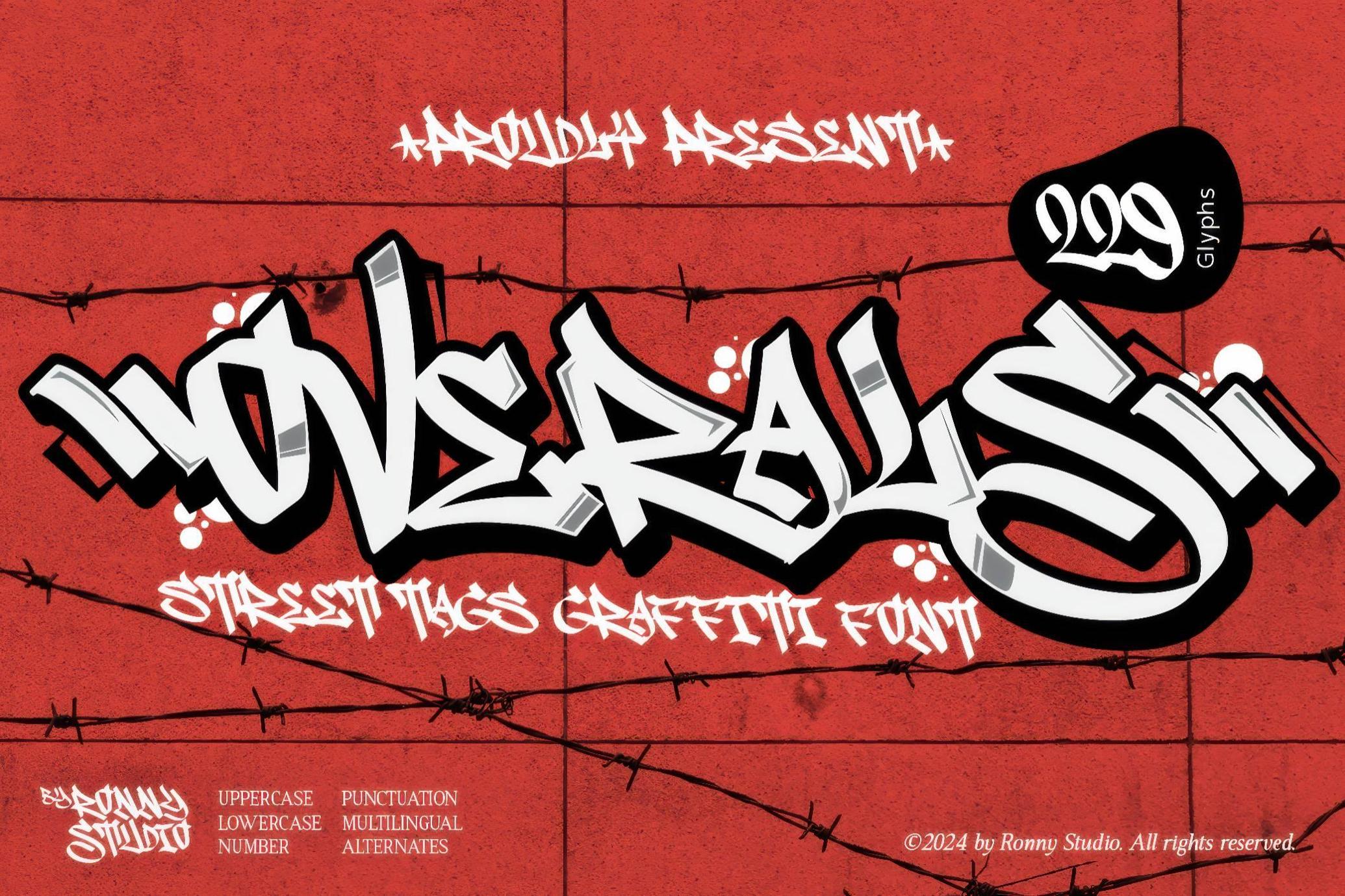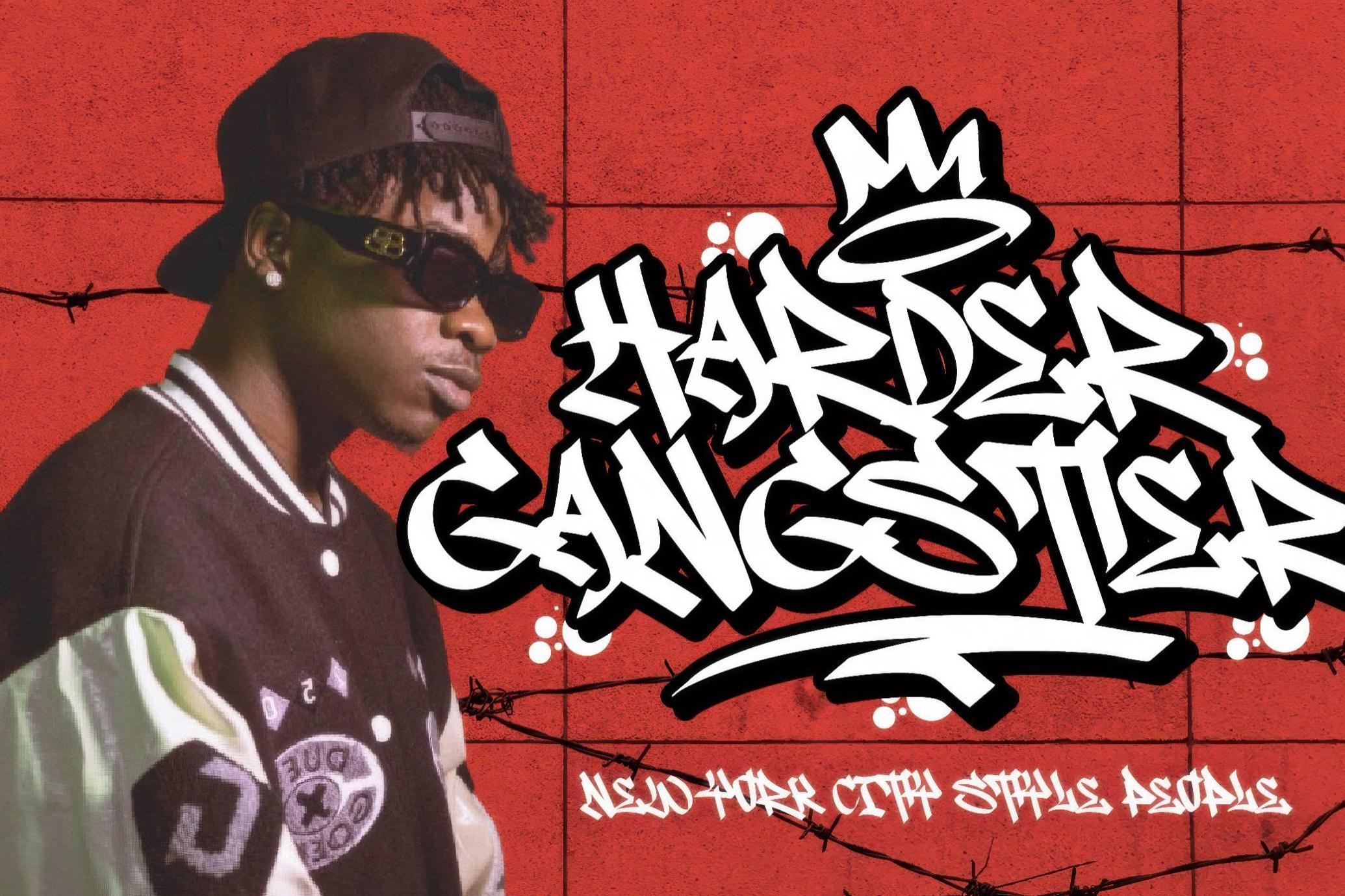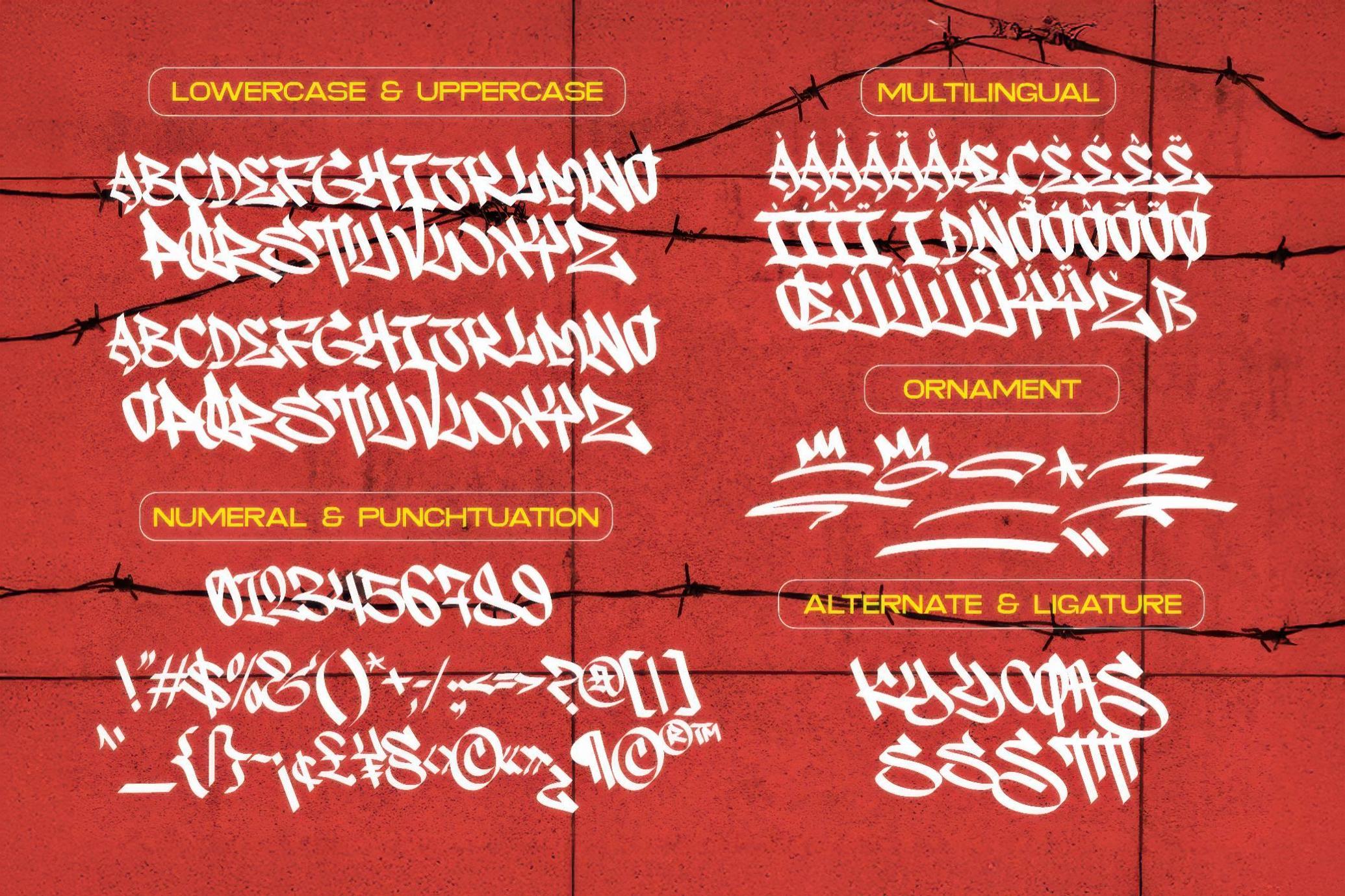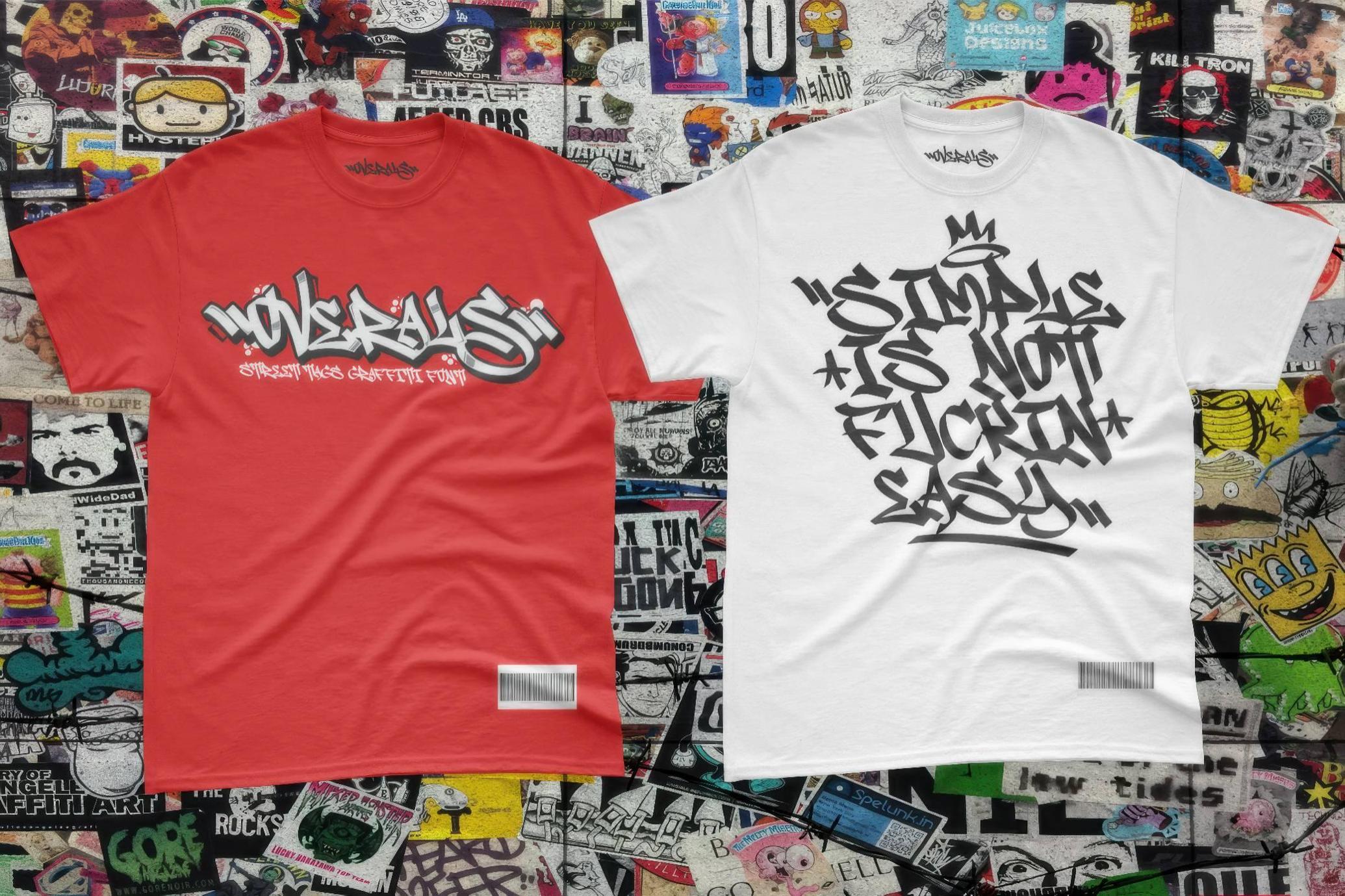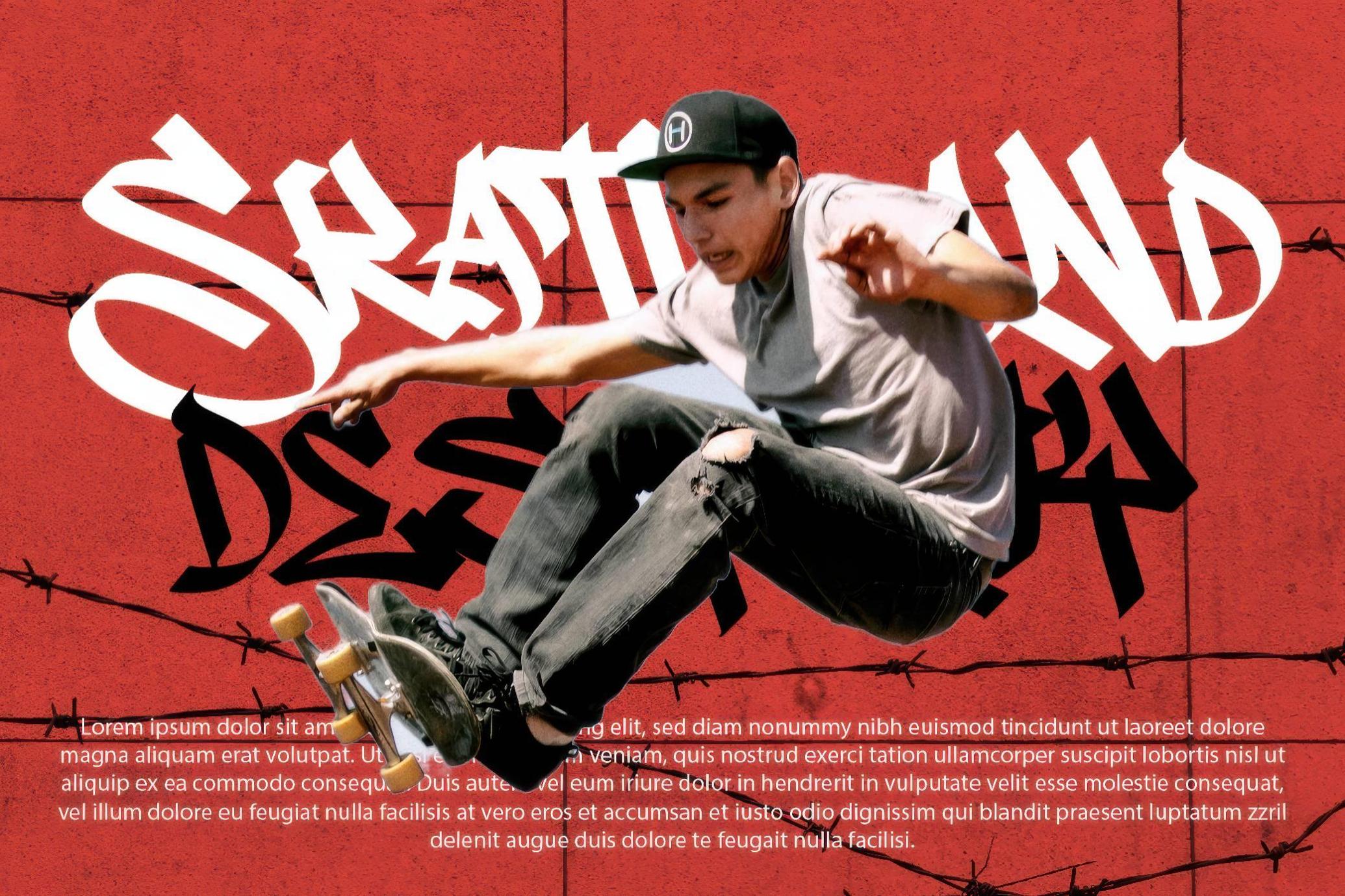
Overals — Street Tags Graffiti Font
Overals is a graffiti-style font born from back alleys, train cars, and concrete jungles. It captures the tagging culture with bold outlines, dynamic letterforms, and a street-smart presence that hits like fresh paint on a city wall. This all-caps font comes packed with 209 glyphs: upper and lower case, numerals, punctuation, stylistic alternates, ligatures, ornaments, and multilingual support. This means you’ll never run out of options while designing posters, merch, mixtape covers, brand drops, apparel graphics, social media art, or your next edgy thing.